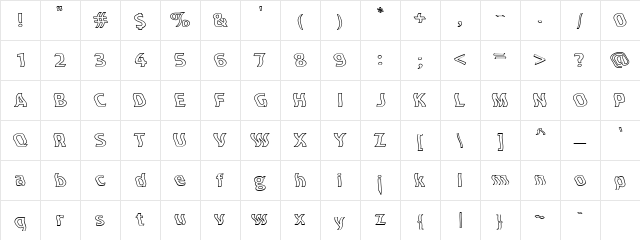
Complete Dross03Hollow Regular glyph index. Displaying only characters natively supported by Dross03Hollow Regular font.
Dross03Hollow is a composed and adaptable typeface that performs quietly and consistently across a wide range of design contexts.